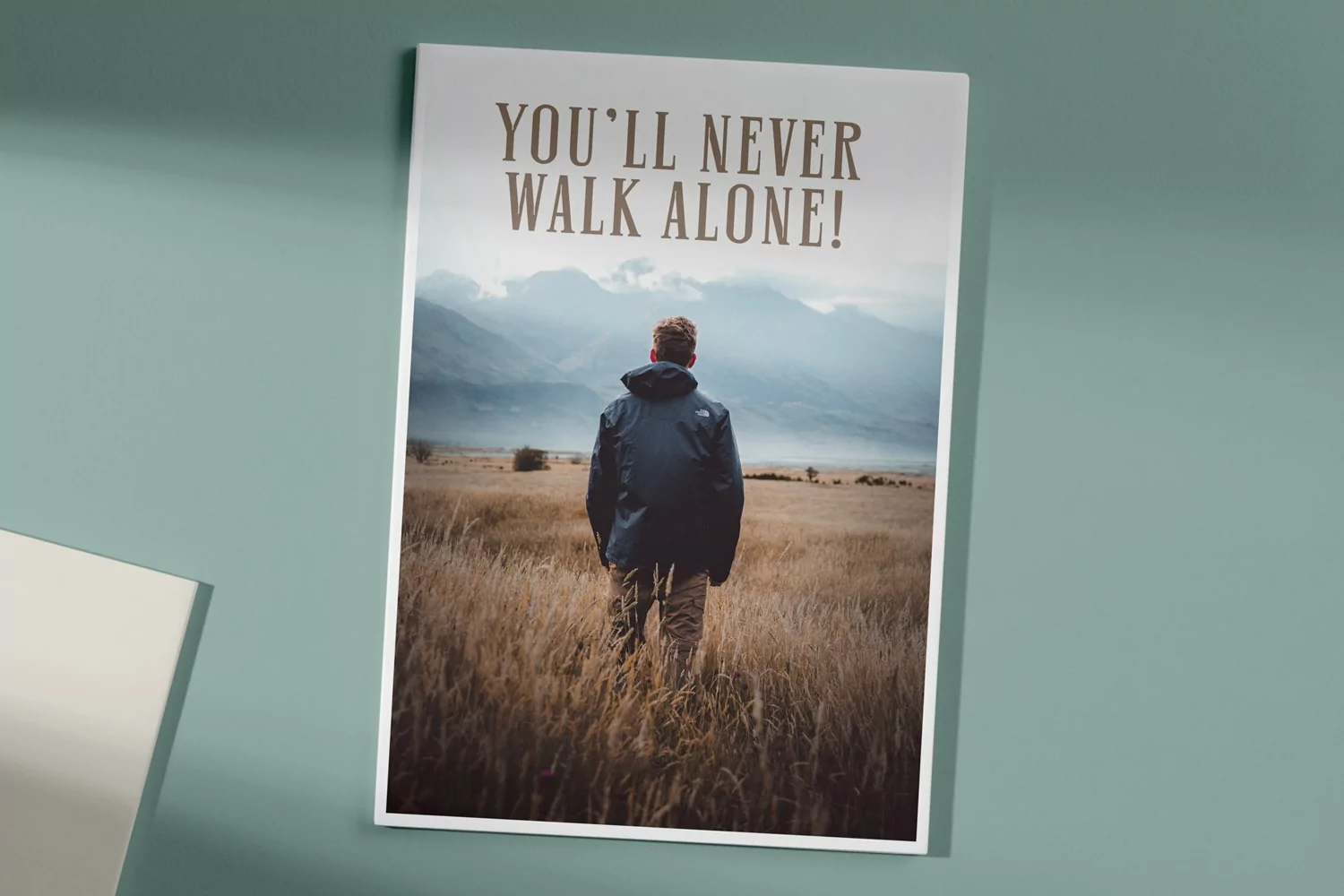
Martina is a modern display serif font with a unique shape style. This font is perfect for feminine logo signs, clothing branding, packaging, magazine headings, fashion heads & editorial designs, branding projects, advertising, T-shirts, postcards and much more.